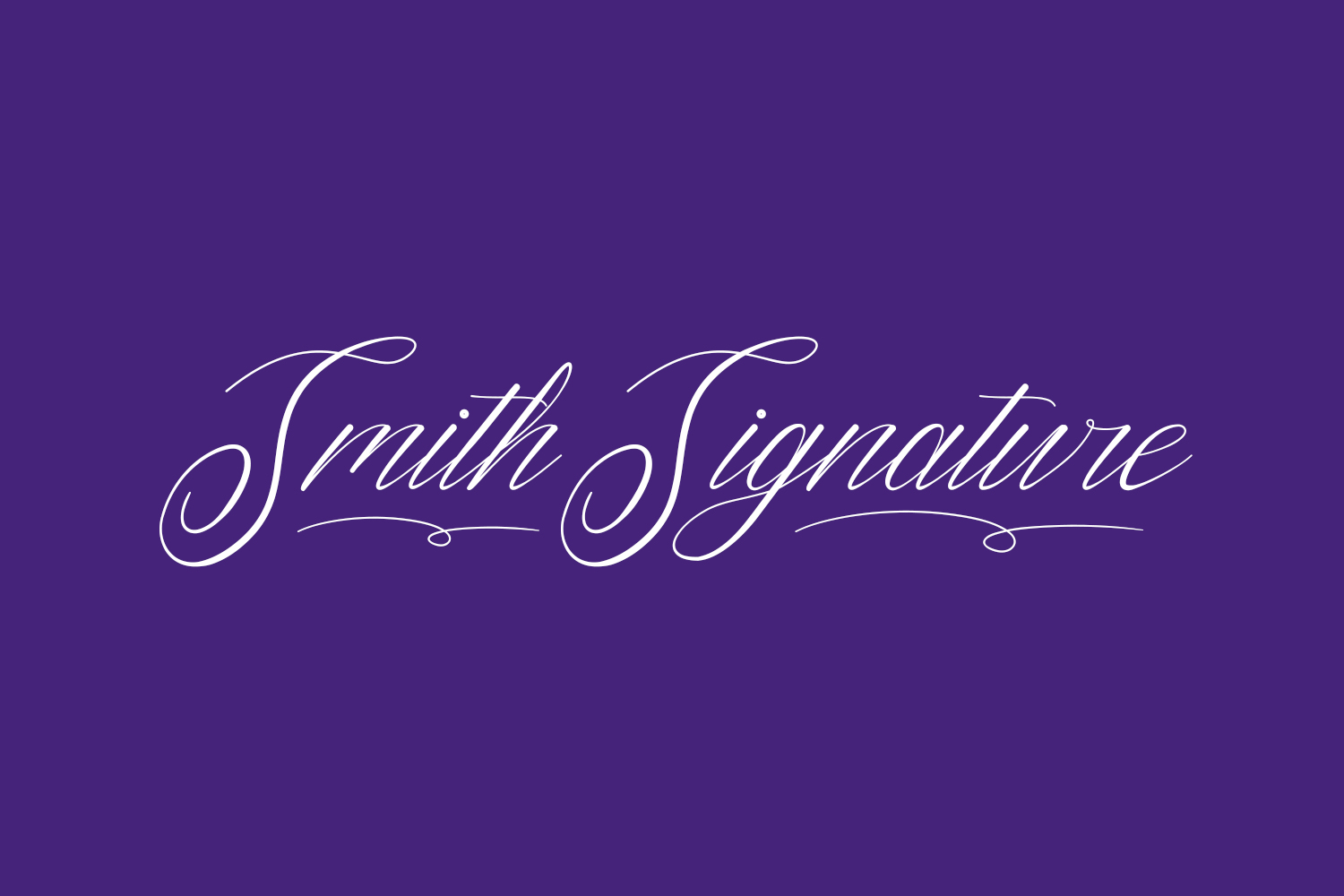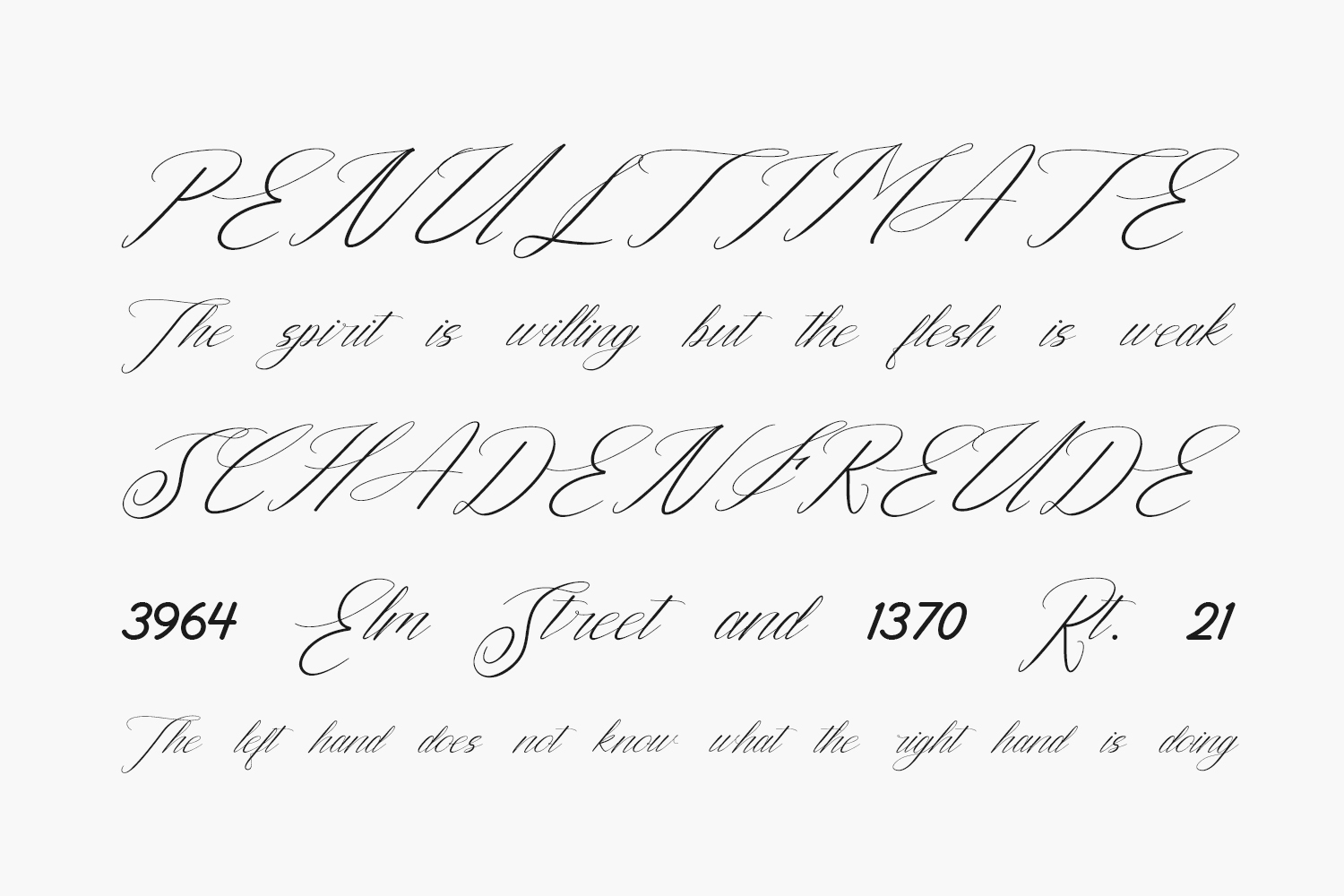
Smith Signature Free Font is an enchanting handwritten font. This versatile script font has a wide spectrum of applications ranging from greeting cards to headlines and is guaranteed to add a romantic feel to your next project. Smith Signature Free Font was designed by RaisProject is a demo and free for personal use only. Please purchase the full version for commercial use.